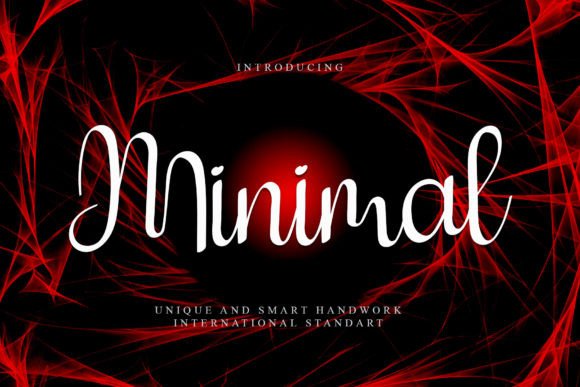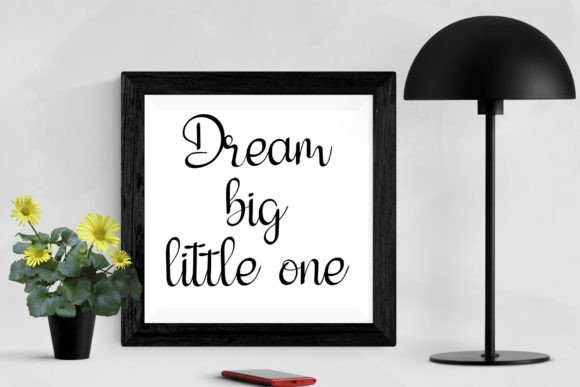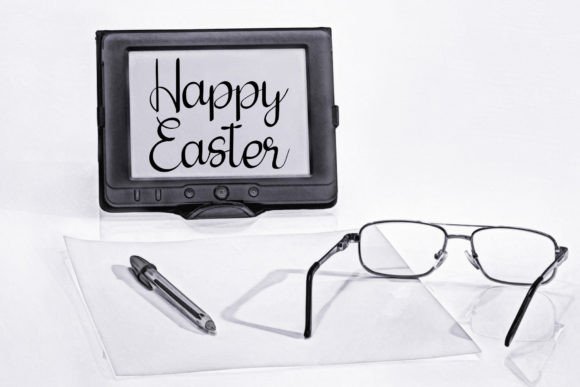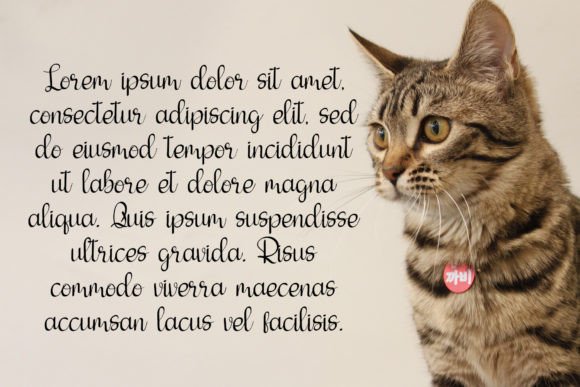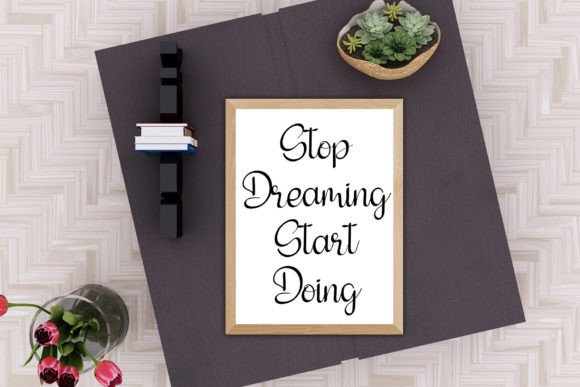
Minimal Font
The Minimal Font Download is a beautiful handwritten script designed to bring simplicity, elegance, and timeless charm to your creative projects. With clean strokes and a well-balanced form, this font is perfect for both personal and professional use. Whether you’re creating invitations, branding, or digital designs, Minimal ensures your work looks polished and full of character.
A Simple Script with Modern Elegance
The Minimal script font blends the grace of classic calligraphy with the clarity of modern design. As a result, it feels elegant, versatile, and approachable. Furthermore, it transitions effortlessly from small stationery projects to large-scale displays, making it a flexible tool for all kinds of designers.
Handwritten fonts always add a heartfelt touch to special occasions. The Minimal Font is ideal for wedding invitations, thank you cards, birthday notes, and holiday greetings. Because of its neat handwritten style, every design looks professional and warm. In addition, it ensures that your stationery leaves a lasting impression.
Branding and Logo Design with Minimal Font
Typography is a powerful tool for building a brand’s identity. The Minimal handwritten font is excellent for logos, product packaging, and promotional content. Its handwritten form strikes a balance between elegance and friendliness. Therefore, it is especially effective for fashion, lifestyle, and creative industries.
Posters, Titles, and Editorial Work
The Minimal Font Download also shines in posters, magazines, book covers, and banners. It remains legible in both large and small sizes while adding handwritten charm. Consequently, it is a dependable choice for designers who value creativity and readability together.
In today’s digital world, fonts must be adaptable across platforms. The Minimal typeface integrates seamlessly into Instagram posts, YouTube thumbnails, Pinterest graphics, and blogs. Because of its stylish handwritten form, it ensures that digital content stands out with elegance.
Why Designers Choose Minimal Typeface
Designers appreciate fonts that are both functional and stylish. The Minimal handwritten script keeps its natural handwritten character while staying easy to read. This balance makes it suitable for hobbyists and professionals. Moreover, its timeless style guarantees it will remain trendy for years.